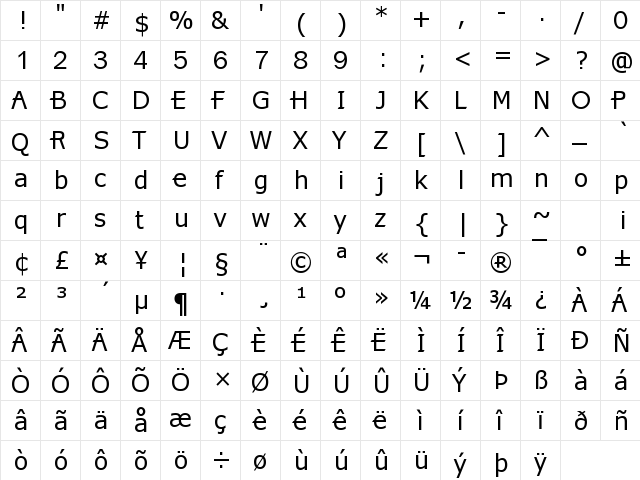
X360 by Redge Regular
Design Context for X360 by Redge Typeface
X360 by Redge takes a measured approach to typography — its balanced proportions and neutral character make it a reliable workhorse for both digital and print work.
Pro Tip: Use X360 by Redge in both headline and body roles to test its range before committing to a single application.